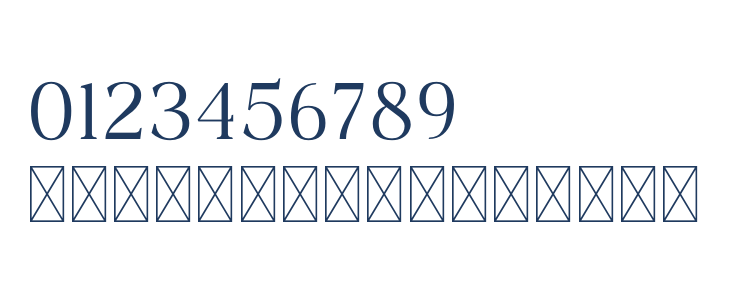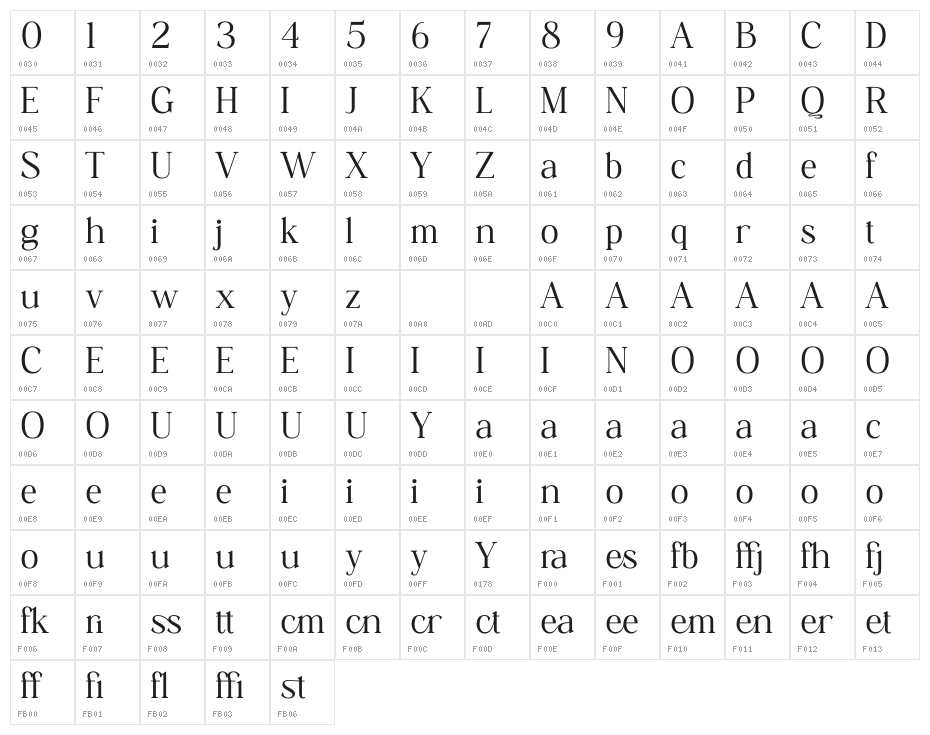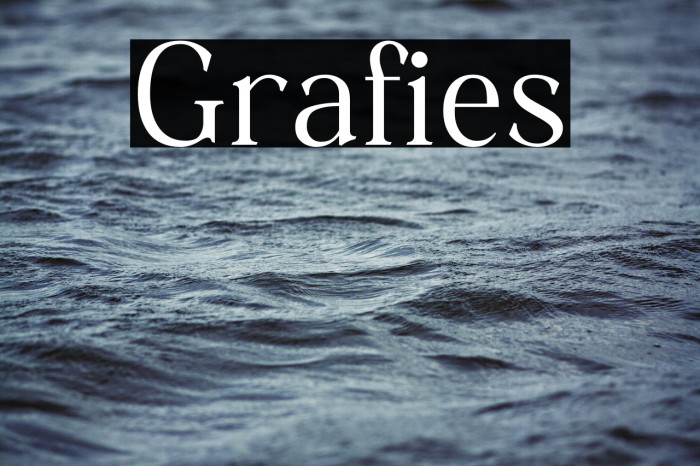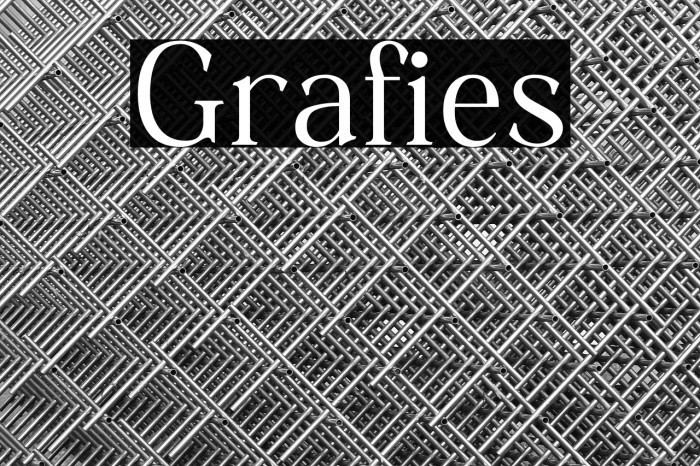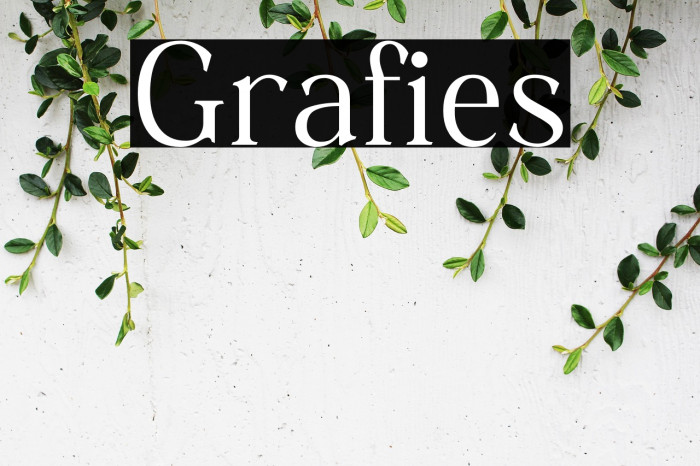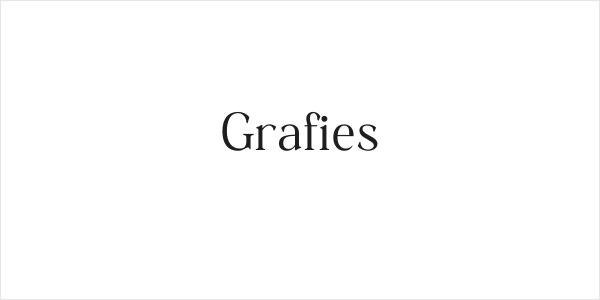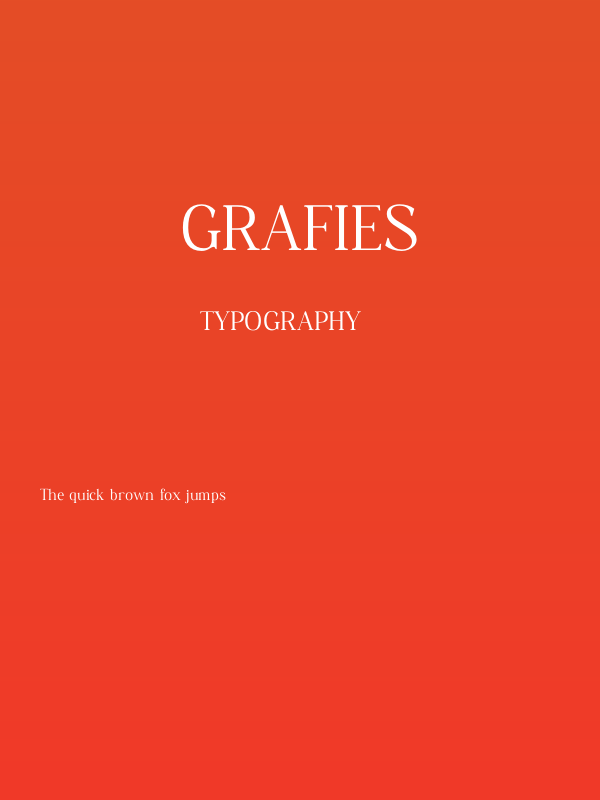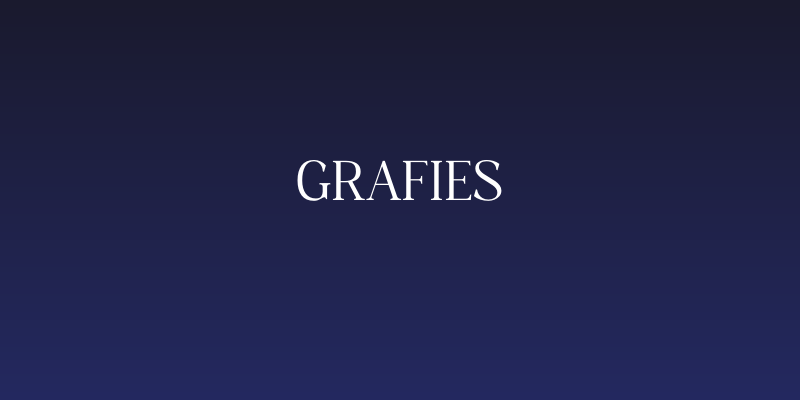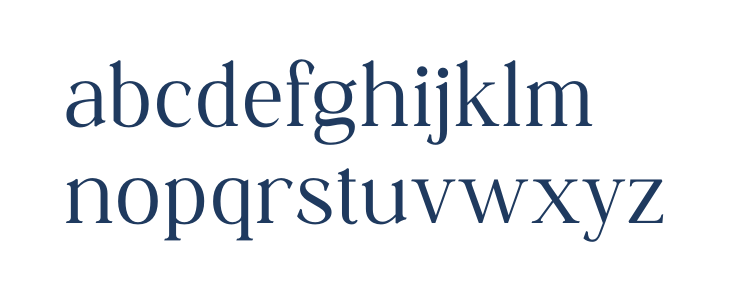
Grafies Font
Grafies Description
This font features a classic serif style with elegant and refined strokes. The uppercase letters are bold and commanding, while the lowercase letters maintain a graceful and balanced appearance. The numerals are clear and distinct, providing excellent readability. The font's design is characterized by its medium contrast between thick and thin strokes, giving it a sophisticated and timeless look. The spacing between characters is normal, ensuring legibility in various text sizes. This font is versatile, suitable for both formal and informal settings, making it ideal for a wide range of applications.
| Proposed Projects | Ideal for editorial design, book covers, formal invitations, and branding projects. |